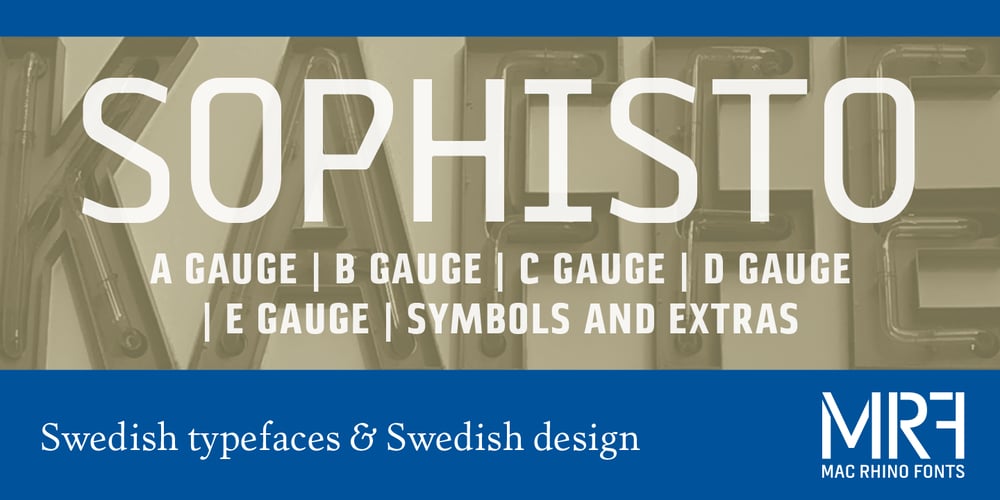
Sophisto Font Family was designed by Stefan Hattenbach and published by MAC Rhino Fonts. Sophisto contains 20 styles and family package options. A successful collaboration between MRF and Psy/Ops Type Foundry. In search for a Sans Serif with a significant and strong character but still ”low-key” enough to be functional for most areas, Sophisto finally grew into an extensive family of 21 parts. Made carefully to fit both text- and display solutions. The buttons, images and patterns makes it even more complete as a family.